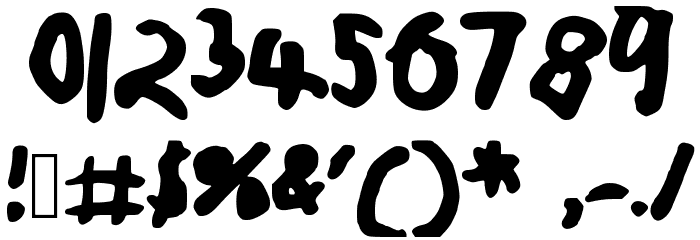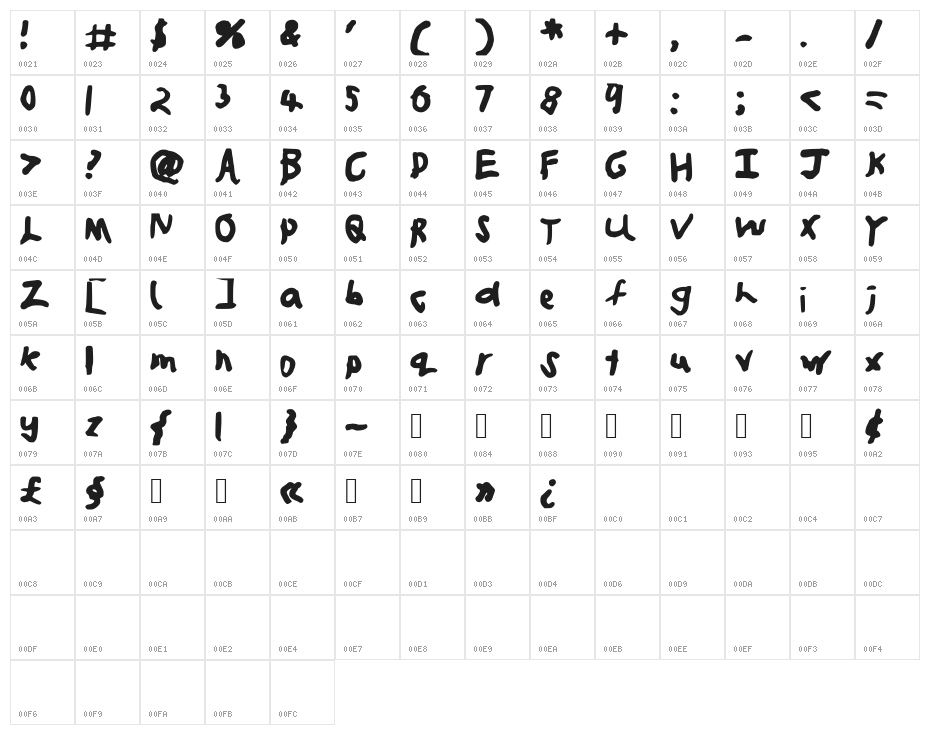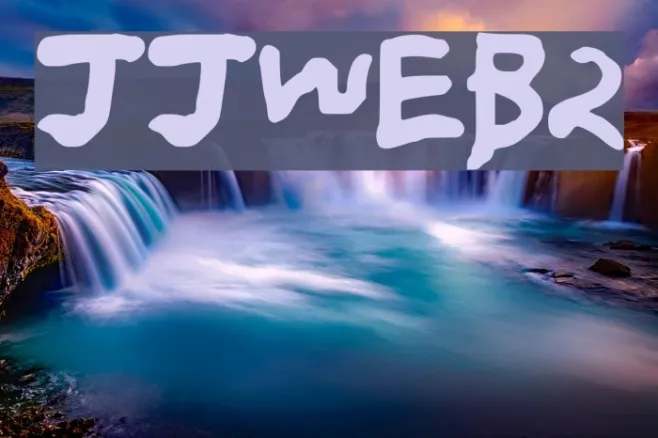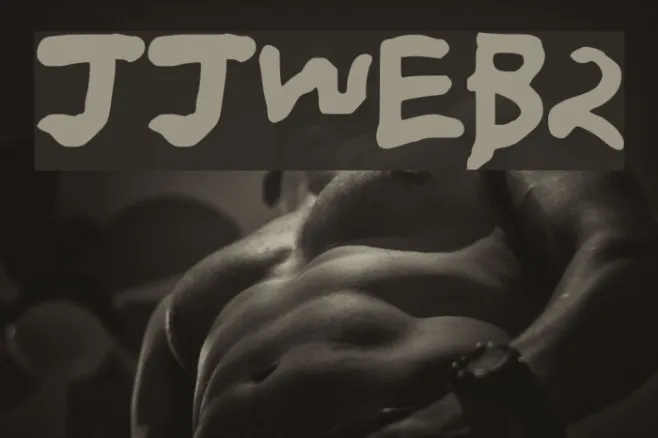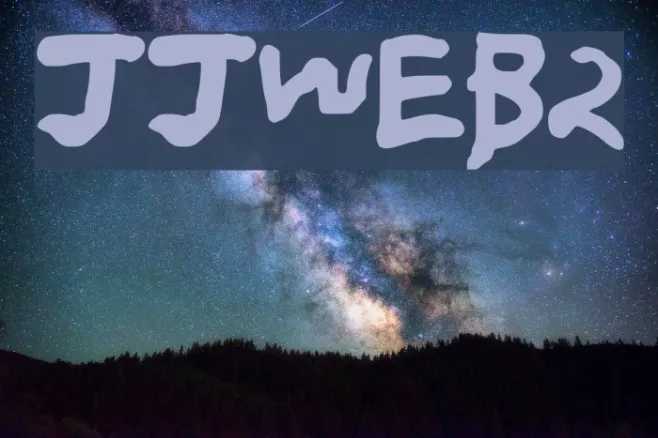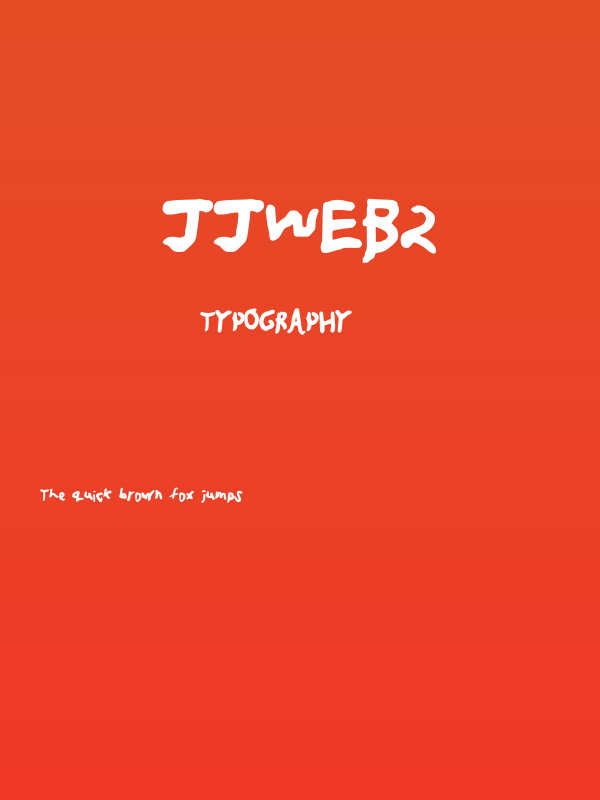
JJWEB2 Font
JJWEB2 Description
This font features a bold, handwritten style with a playful and informal appearance. The letters are thick and have a slightly uneven, organic feel, reminiscent of casual brush strokes. The uppercase and lowercase characters maintain a consistent style, with rounded edges and varying line thickness that adds to its dynamic look. The numerals and special characters follow the same aesthetic, ensuring a cohesive appearance across all glyphs. This font's unique character makes it stand out, ideal for projects that require a personal touch.
JJWEB2 UPPERCASE
JJWEB2 LOWERCASE
JJWEB2 OTHER CHARS
| Proposed Projects | Ideal for greeting cards, children's books, playful branding, and social media graphics. |